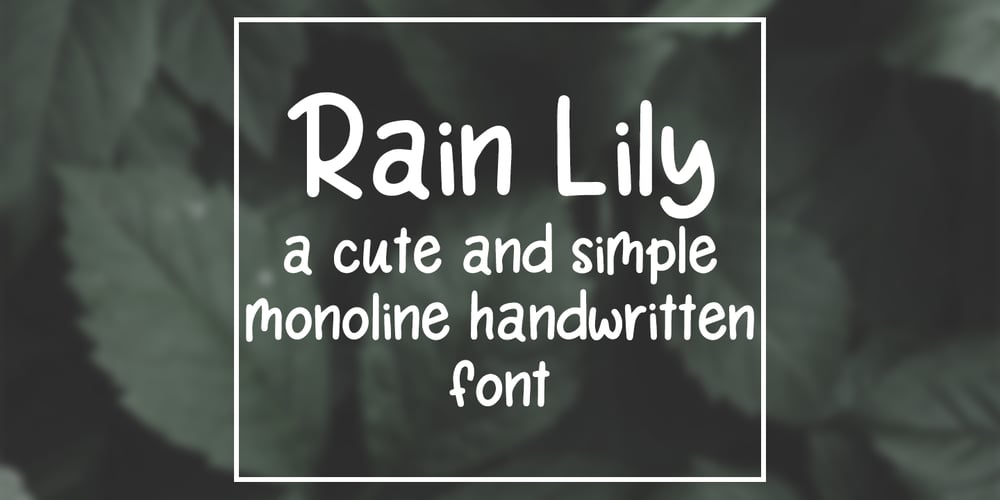
Rain Lily
Rain Lily font
Rain Lily Font Family was designed by Tate Chaffin and published by SavoringSurprises. Rain Lily contains 1 styles and family package options. Rain Lily is a hand lettered sans-serif font. The monoline font is cute, simple, and could be used for any project! – Contains over 200 accented characters for language support. Some of the languages supported are: English, Spanish, Portuguese, German, Italian, French, Polish, Catalan, Irish, Norwegian, Croatian, Gaelic, and more! If you would like to know if a certain language is supported, please contact me with the language and/or any special characters you wanted to know about.